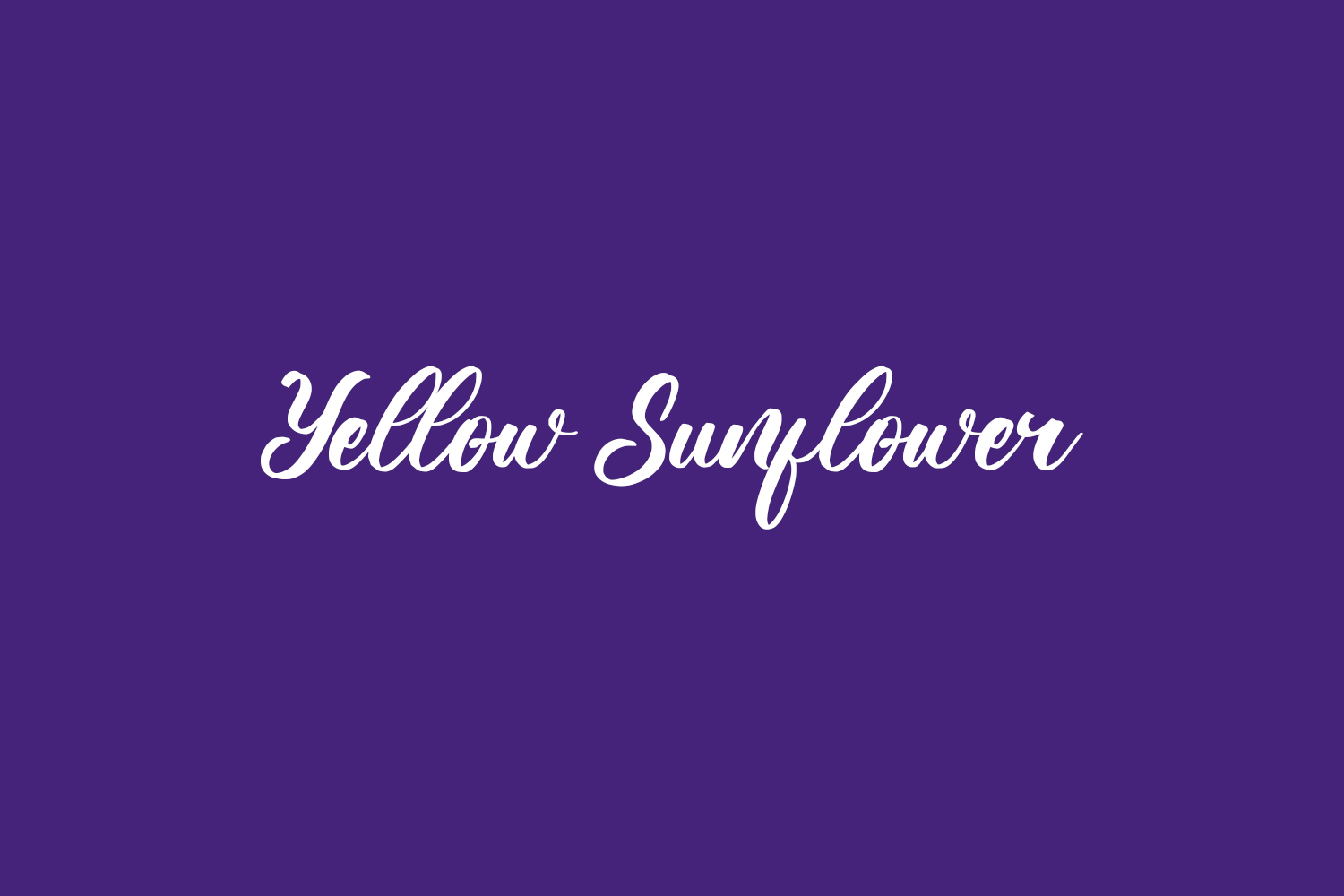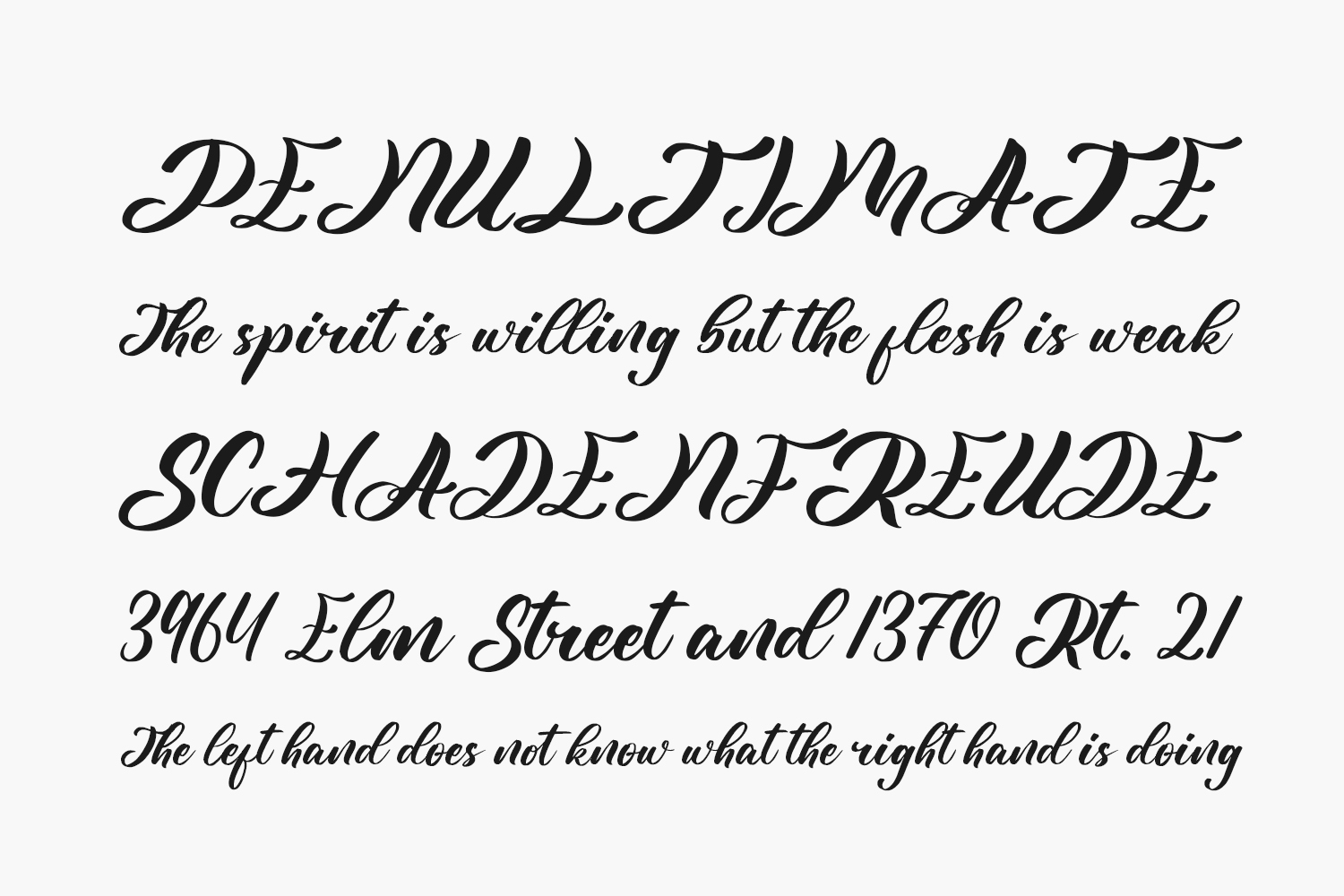
Yellow Sunflower Free Font is a sweet, all-around, and flexible handwritten font. Warm, romantic, and jolly, this font will turn each of your project ideas into real works of art. Have fun with this beautiful font and explore its endless variations/ Yellow Sunflower Free Font was designed by NanaNissa and is free for personal use only. Please purchase the full version for commercial use.